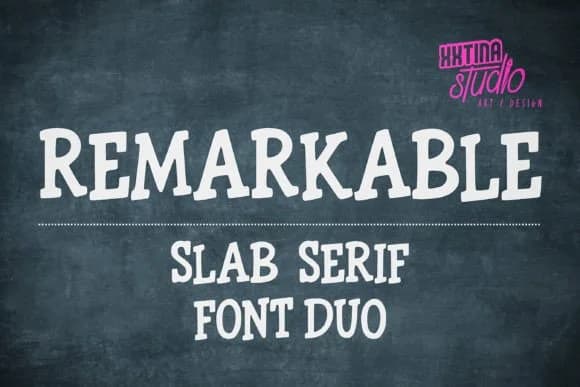
Remarkable, created by The Tenacious Type Studio, pairs the structural weight of slab serifs with a handwritten friendliness that feels both classic and contemporary. The letterforms carry a marked, almost chalkboard quality that softens the geometric rigidity typical of the category, making the typeface approachable without compromising its underlying strength and presence.
This font truly excels in display work where personality and legibility must coexist effectively. Wedding invitation suites gain an approachable formality, children's book covers look inviting without veering into saccharine territory, cafe menu boards and storefront signage communicate genuine warmth, and boutique product labels stand out distinctly on crowded shelves. It works with equal success as a logotype for a small shop, a title treatment on greeting cards, poster designs for craft workshops or school events, or hand-lettered signage in Etsy digital templates and other print-on-demand collections. The weight carries intentionality across every scale, whether deployed large or small, without demanding embellishment or extra decorative layers to strengthen its impact.
Remarkable speaks most directly to designers building custom branding systems, event materials, and packaging for handmade or artisanal products. If you're after a slab serif with genuine personality that avoids trend-chasing, this one delivers both substance and character. Find it on Creative Fabrica.
- Sturdy, Confident, Serif
Remarkable Font is a slab serif font that shines as a display or heading face. Pair it with a clean sans-serif or serif font for body text β the contrast creates a clear hierarchy while the two styles stay balanced and easy to read.